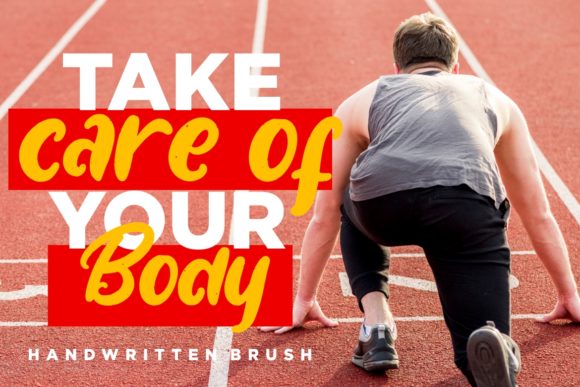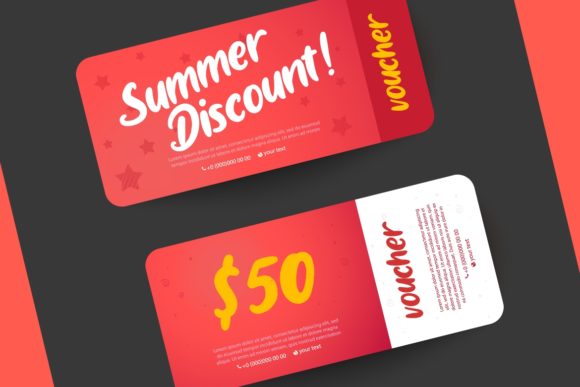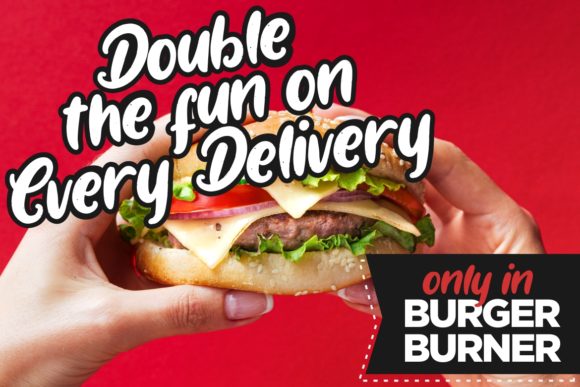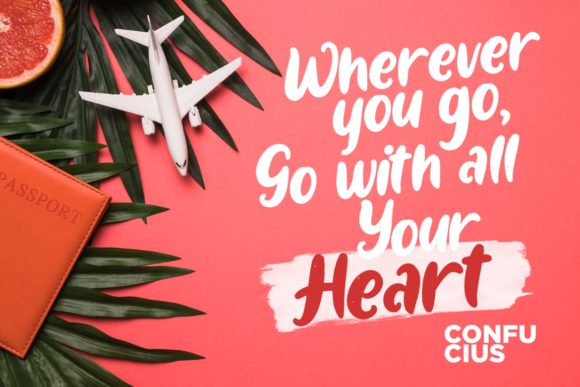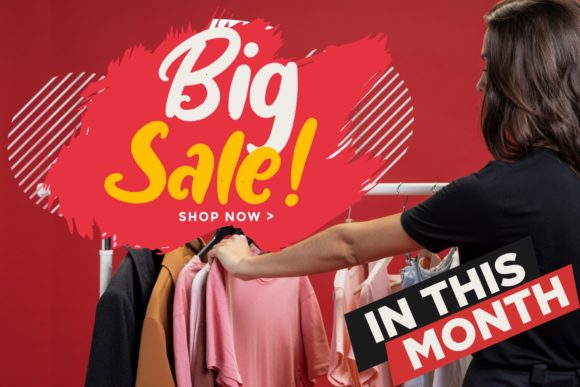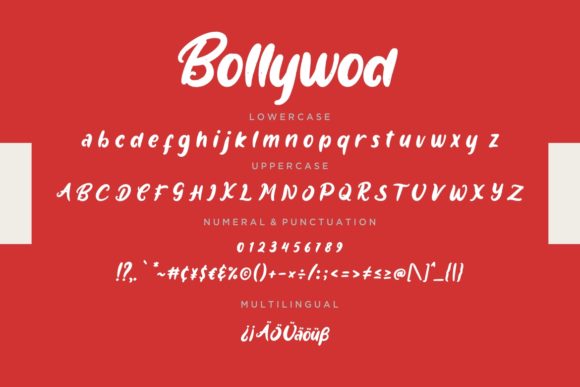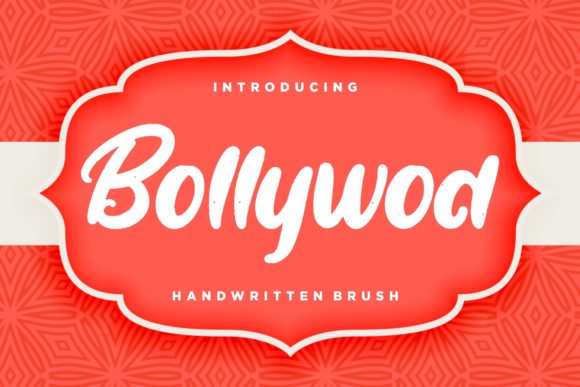
Bollywod Font: Elevate Your Designs with a Stylish Marker Brush Font
Are you tired of using the same old fonts in your designs? Look no further than Bollywod, a stylish marker brush font that’s perfect for adding a touch of personality to your projects. With its casual feel and versatility, Bollywod is ideal for a wide range of applications, from logos and social media posts to advertising, stationery, and product packaging.
What is Bollywod Font?
Bollywod is a unique and creative font that’s designed to mimic the look of a marker brush. Its casual, hand-crafted feel makes it perfect for designers and crafters who want to add a personal touch to their work. Whether you’re creating a logo, social media post, or product label, Bollywod is sure to make your design stand out.
Key Features of Bollywod Font
- Marker Brush Style: Bollywod’s marker brush style gives it a unique and creative look that’s perfect for adding a touch of personality to your designs.
- Casual Feel: With its casual, hand-crafted feel, Bollywod is perfect for designs that need a personal touch.
- Versatility: Bollywod is versatile enough to be used in a wide range of applications, from logos and social media posts to advertising, stationery, and product packaging.
Uses for Bollywod Font
Bollywod is perfect for a wide variety of projects, including:
- Logos: Create a unique and memorable logo for your business or brand with Bollywod.
- Social Media Posts: Add a touch of personality to your social media posts with Bollywod’s stylish marker brush font.
- Advertising: Make your ads stand out with Bollywod’s creative and eye-catching font.
- Stationery: Add a personal touch to your stationery, including business cards, letterheads, and more.
- Product Packaging: Make your product packaging stand out with Bollywod’s unique and stylish font.
Why Choose Bollywod Font?
There are many reasons why Bollywod is a great choice for designers and crafters. Here are just a few:
- Unique and Creative: Bollywod’s marker brush style makes it a unique and creative font that’s sure to make your designs stand out.
- Versatile: Bollywod can be used in a wide range of applications, making it a great addition to any designer’s toolkit.
Tips for Using Bollywod Font
Here are a few tips for using Bollywod font in your designs:
- Experiment with Different Sizes: Bollywod looks great in a variety of sizes, so don’t be afraid to experiment and find the perfect size for your design.
- Pair with Other Fonts: Bollywod pairs well with a variety of other fonts, so try pairing it with different fonts to create a unique and interesting design.
- Use in Combination with Images: Bollywod looks great in combination with images, so try using it to add text to your photos or illustrations.
Bollywod is a stylish and versatile marker brush font that’s perfect for designers and crafters who want to add a personal touch to their work. With its casual feel and wide range of uses, Bollywod is a great addition to any designer’s toolkit. Whether you’re creating a logo, social media post, or product label, Bollywod is sure to make your design stand out.